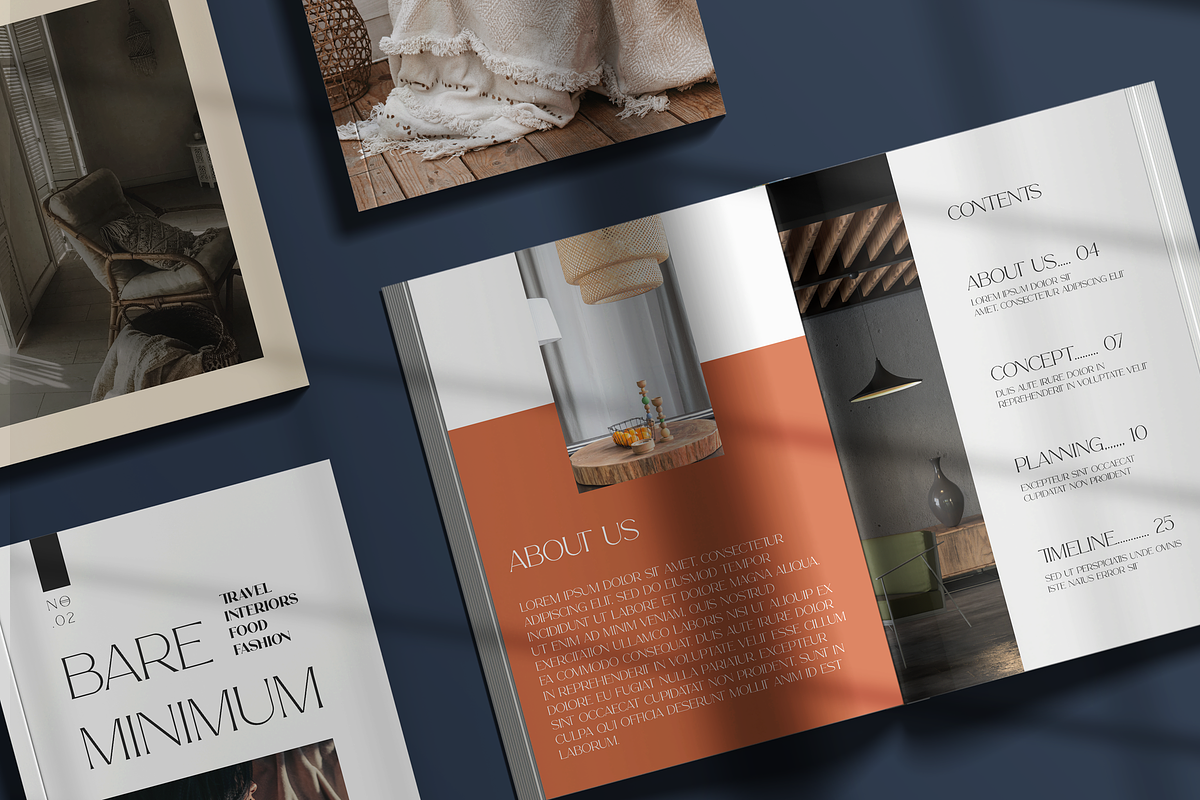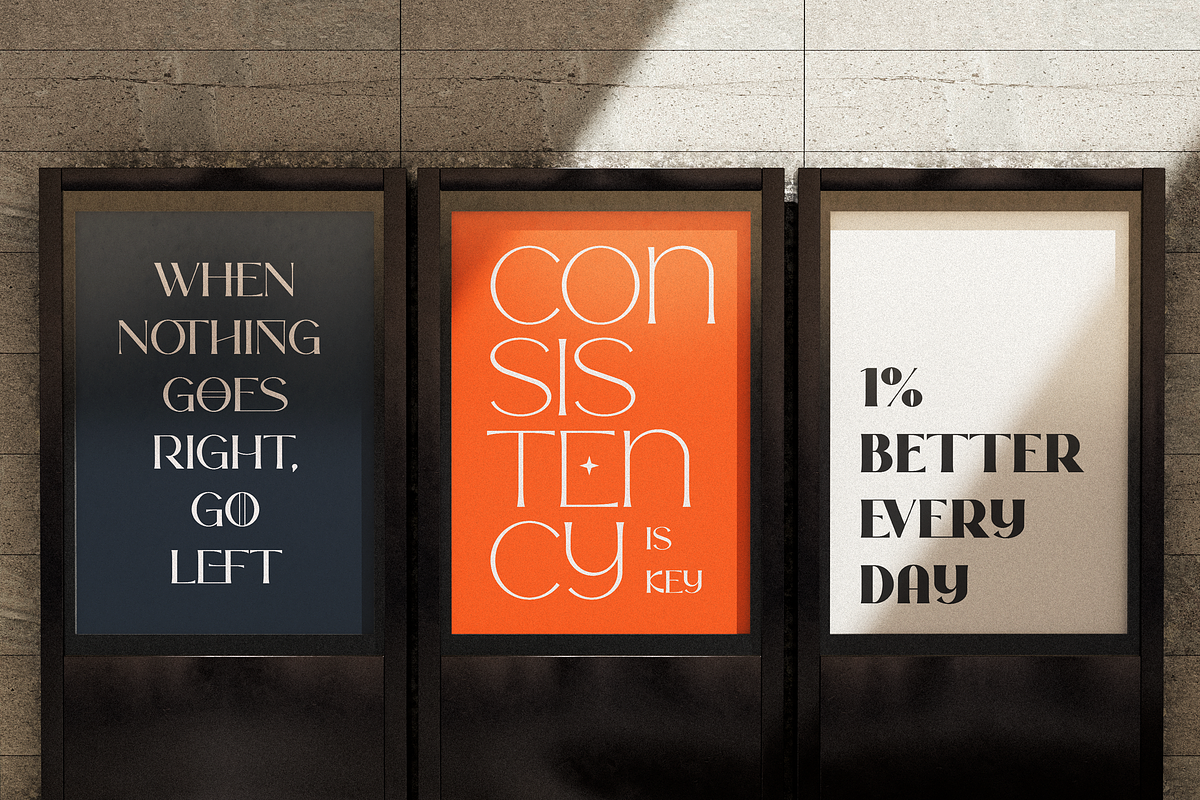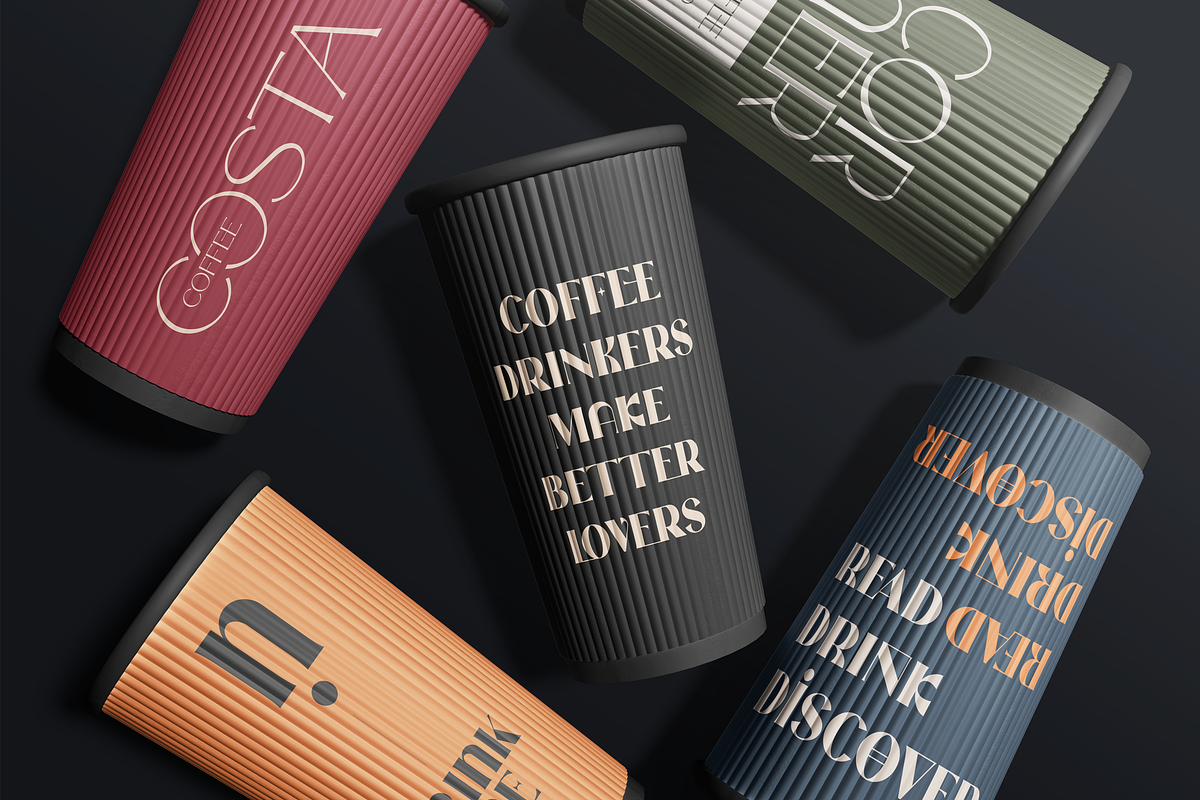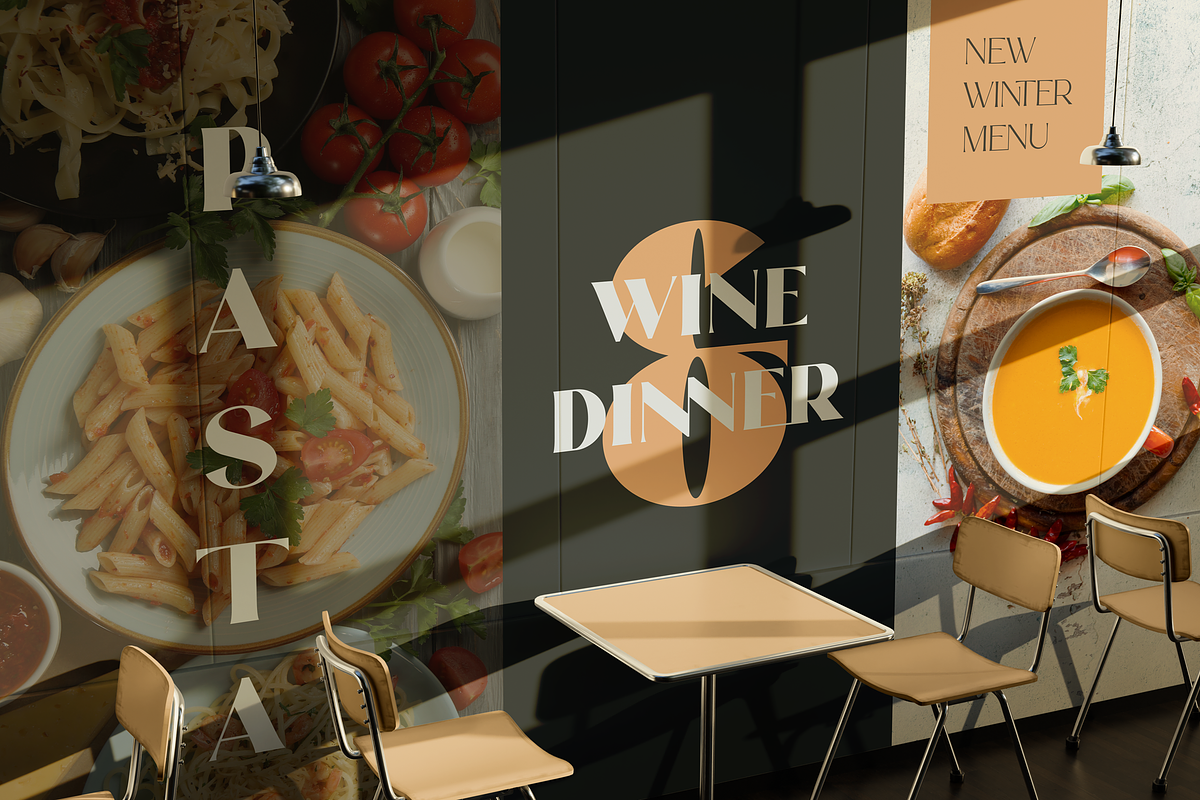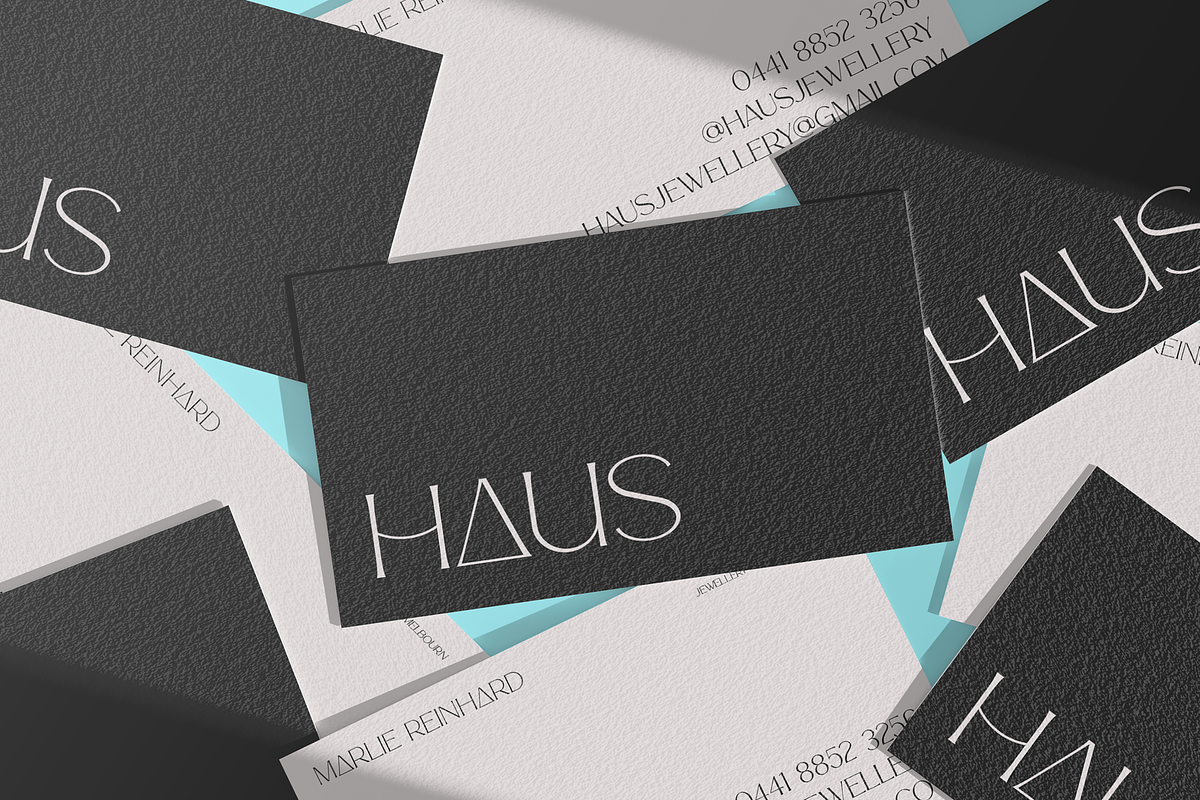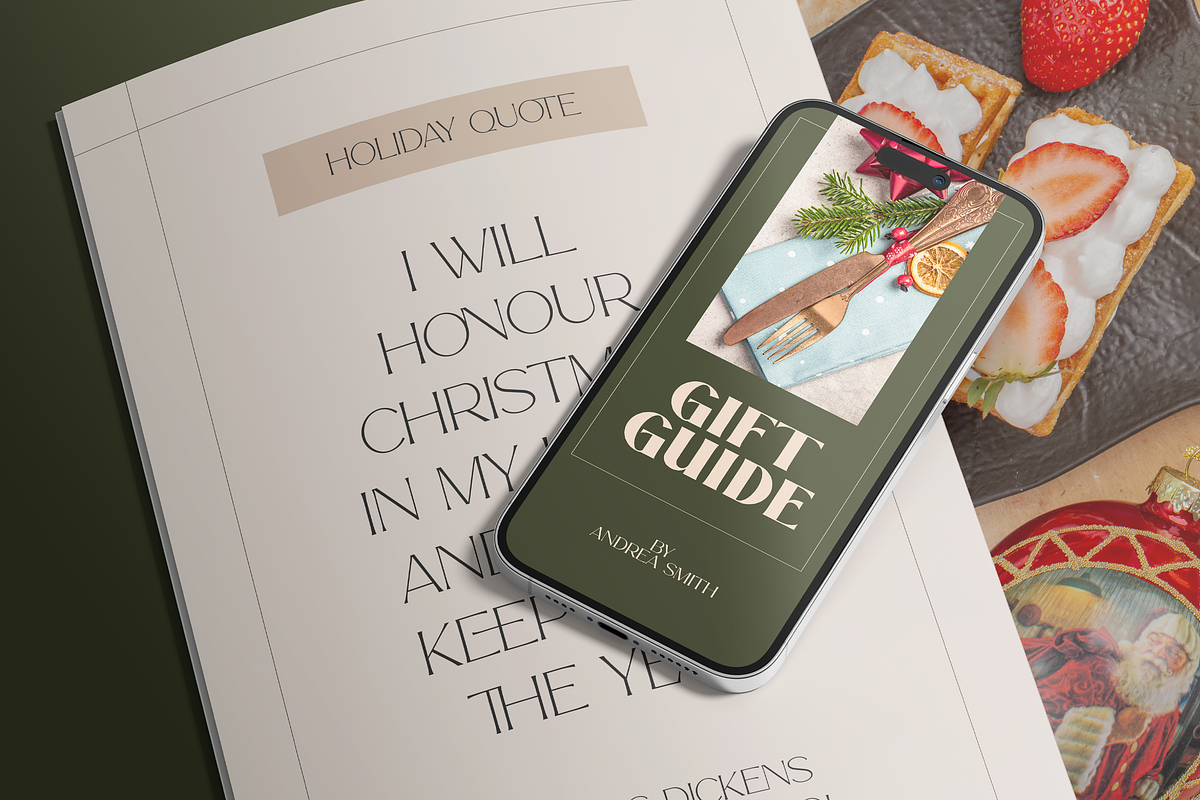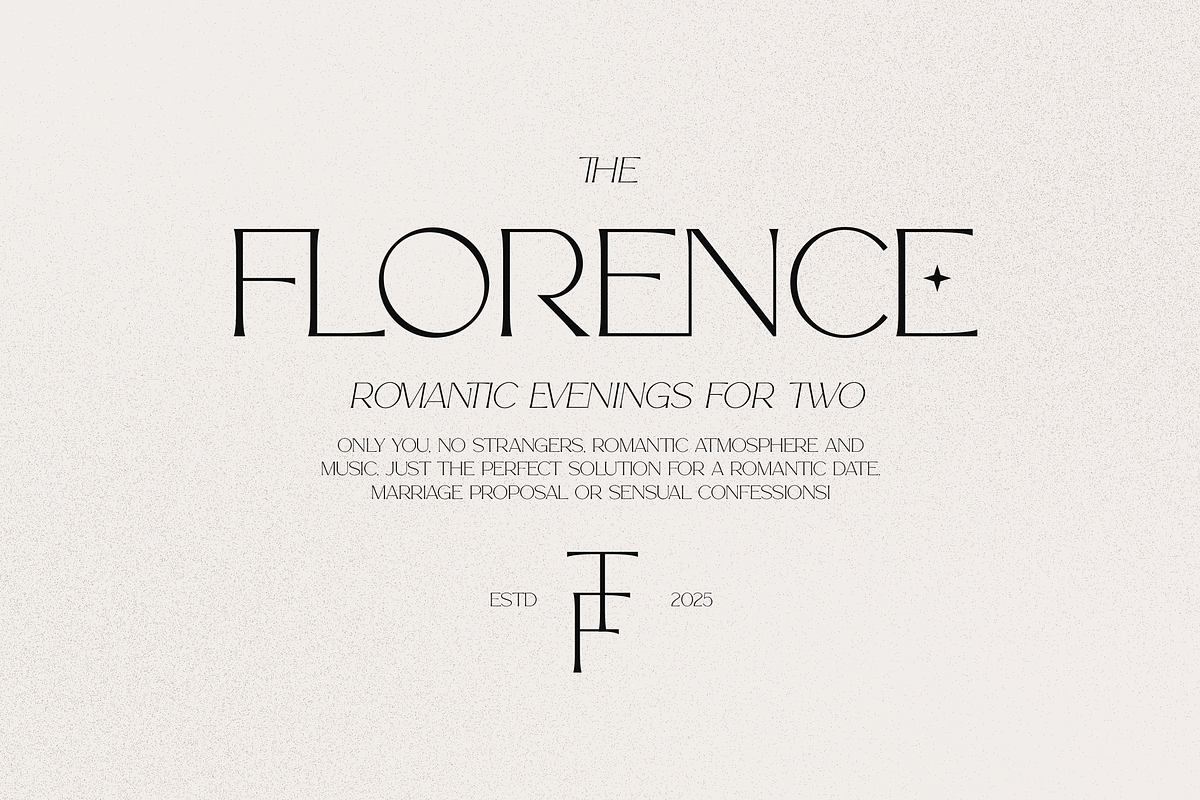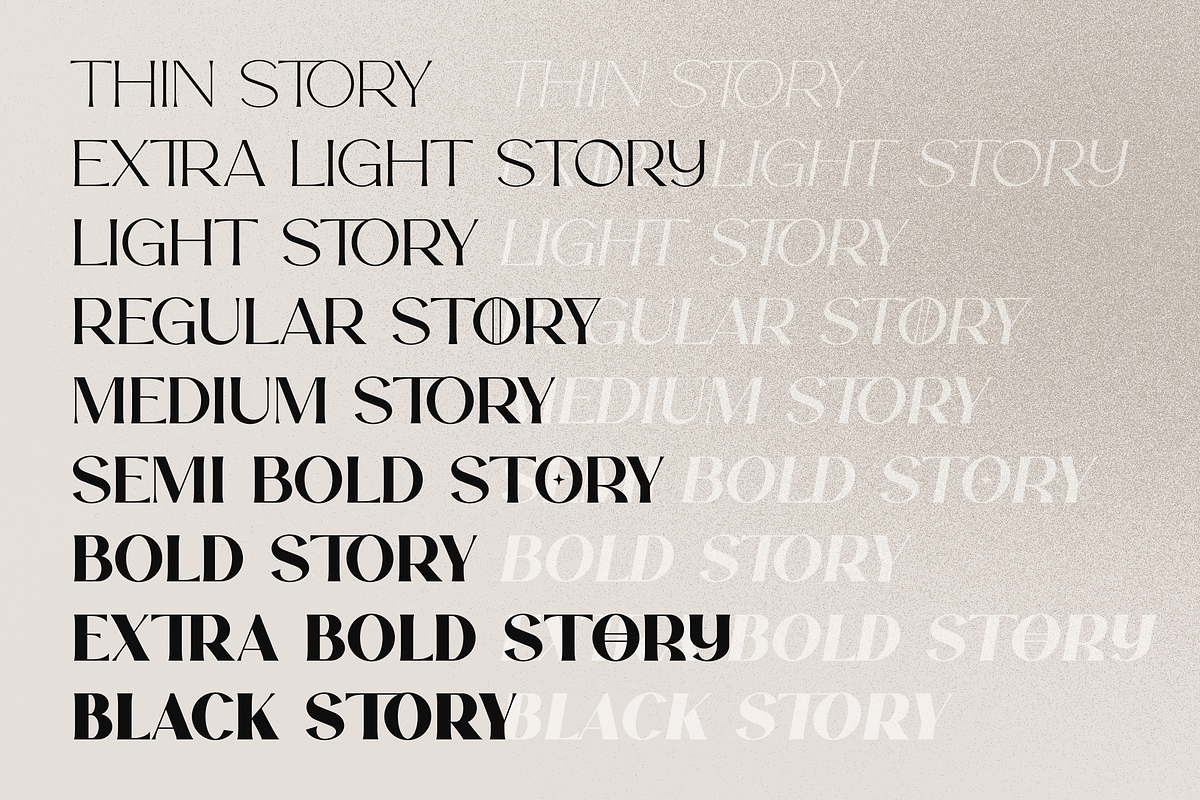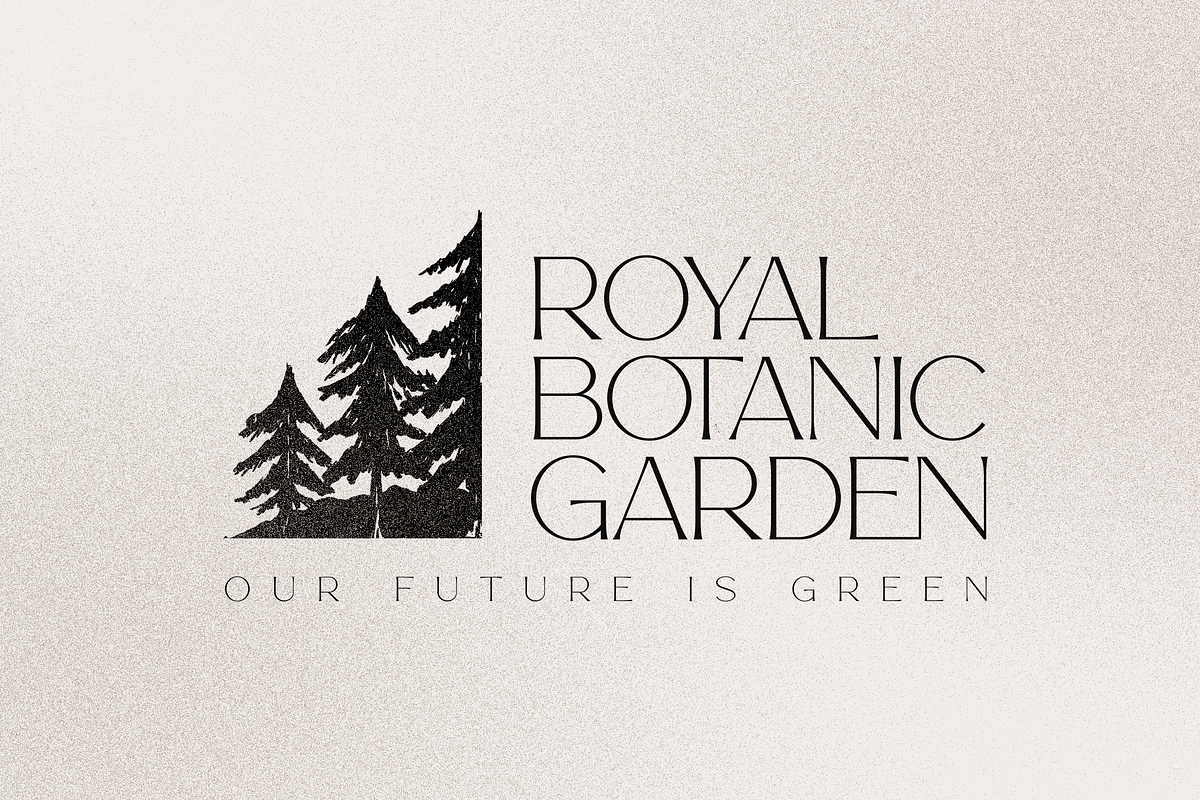
Story Type elegant typeface 18 fonts
Introducing Story Type, a versatile and elegant font family perfect for modern design projects. Featuring 9 weights with matching italics, this typeface supports 87 languages, complete with ligatures and alternate glyphs for creative flexibility. Ideal for branding, editorial layouts, packaging, and digital design, Story Type combines sophistication with functionality. Elevate your designs with this timeless font!